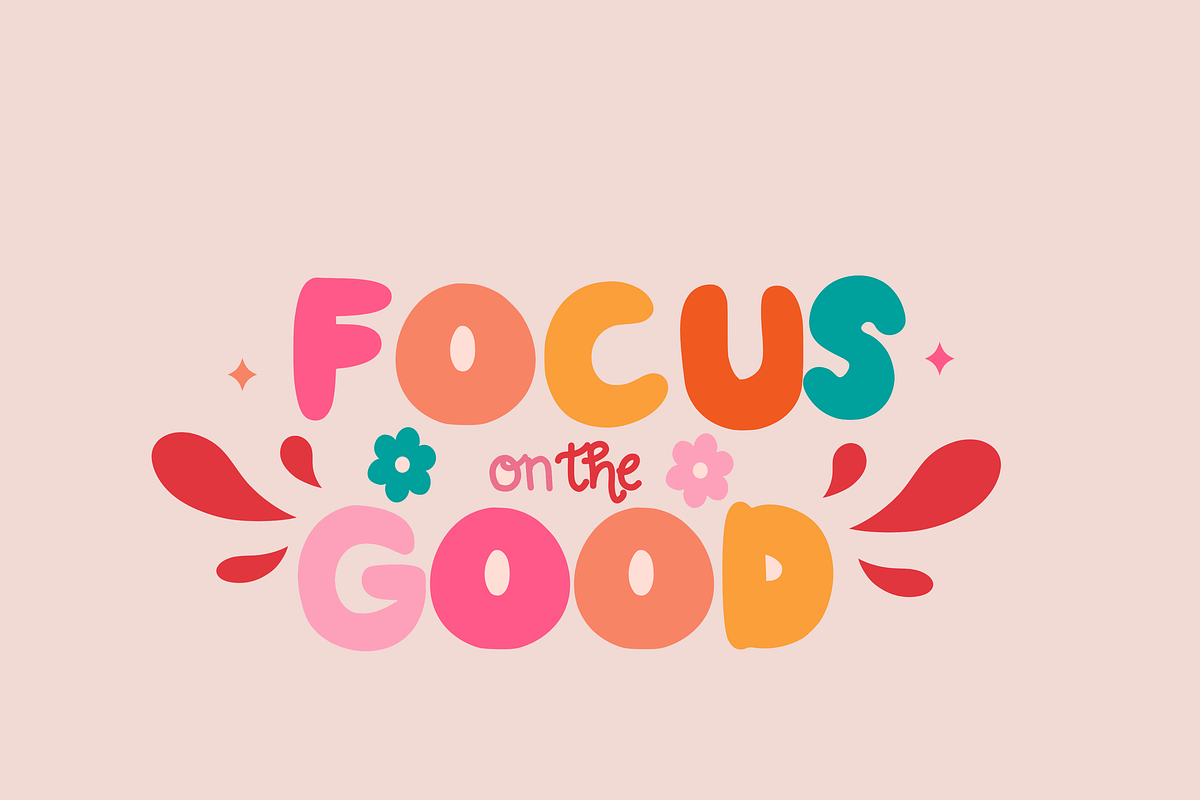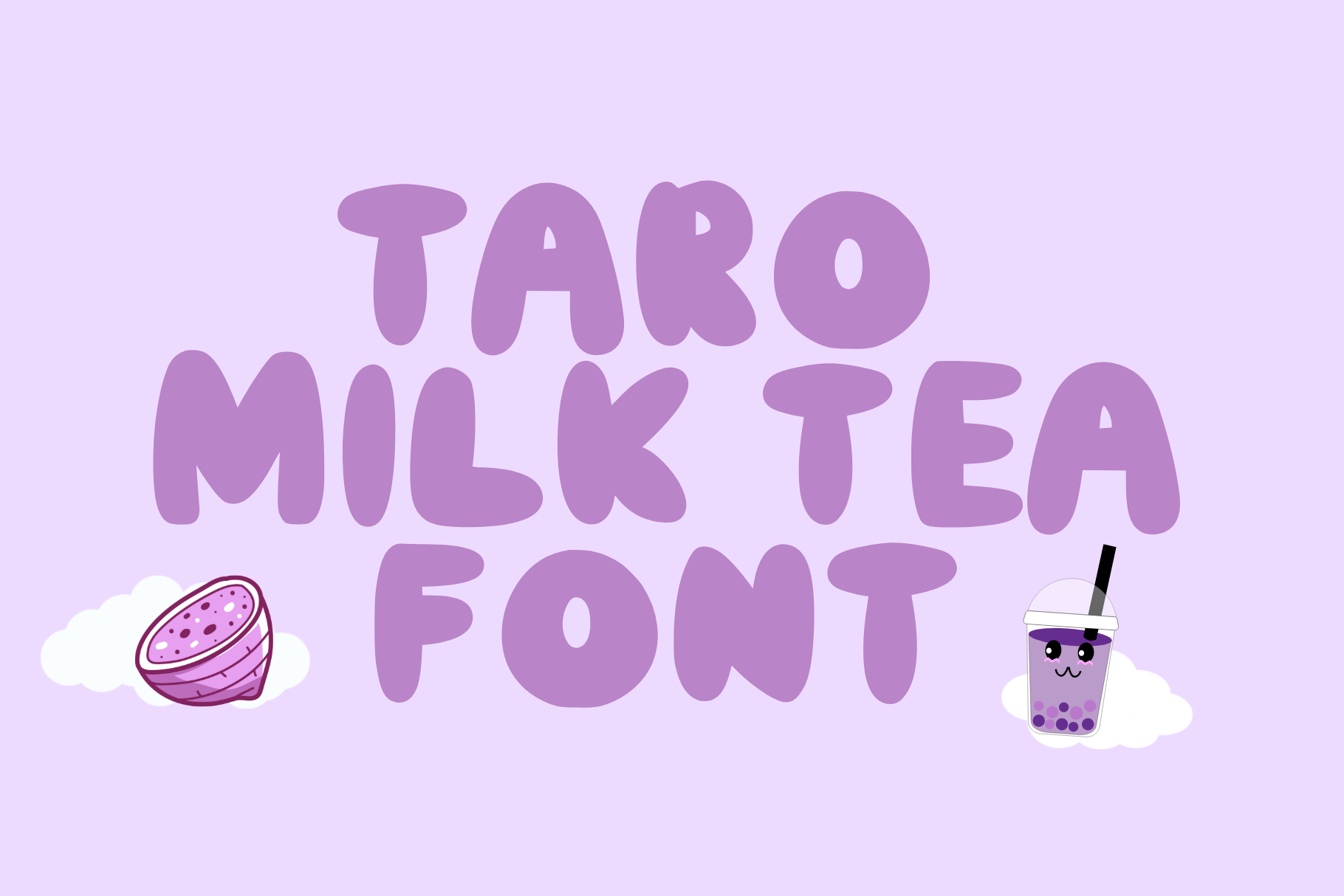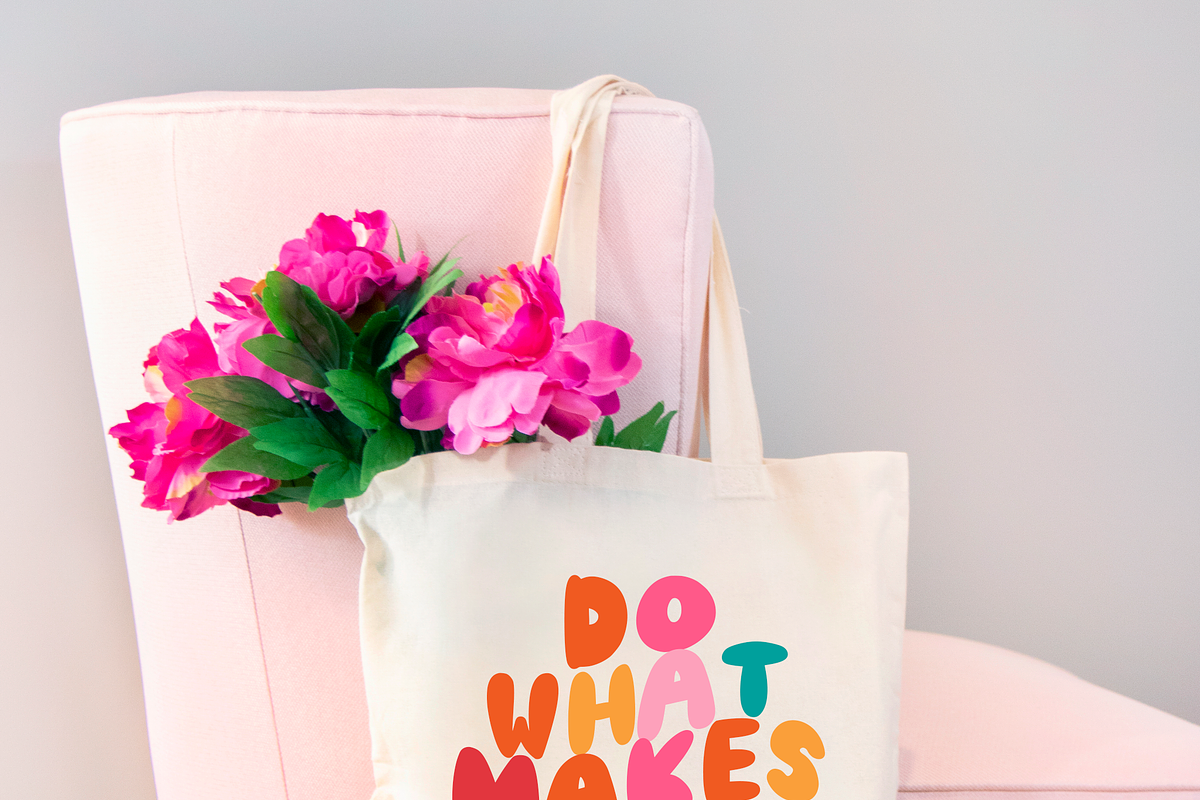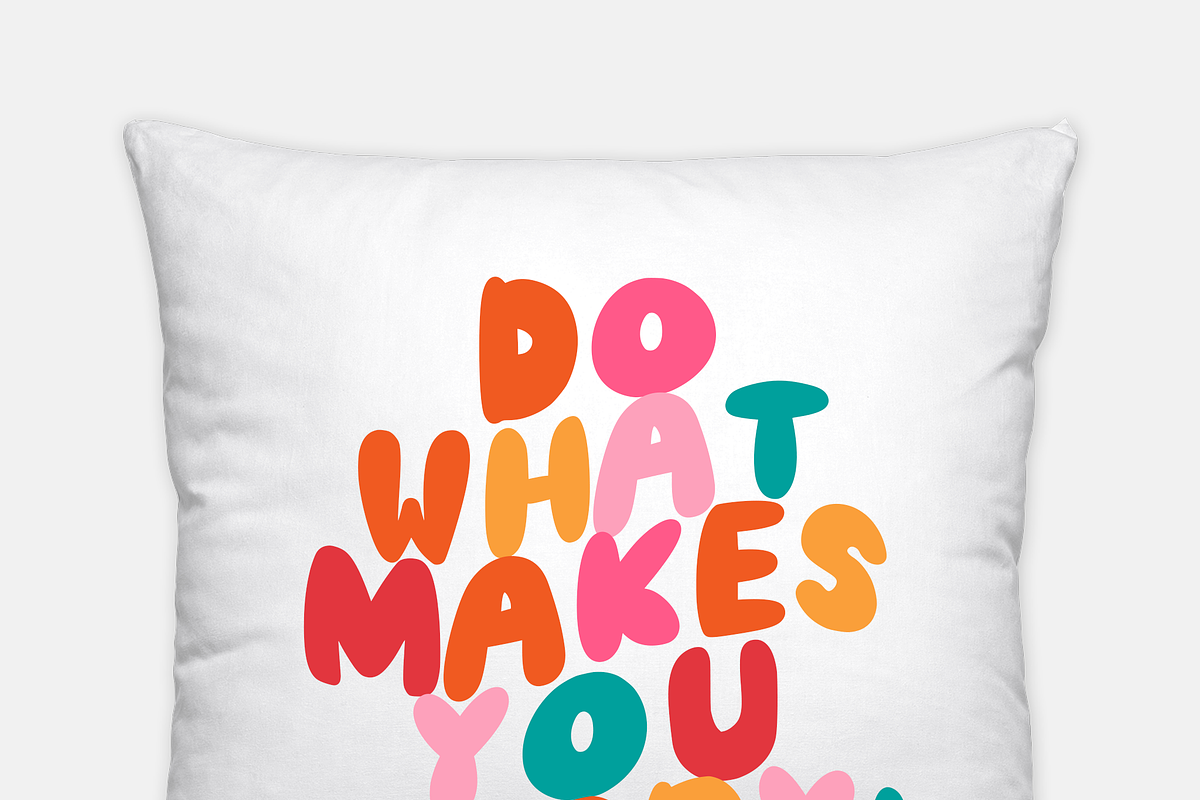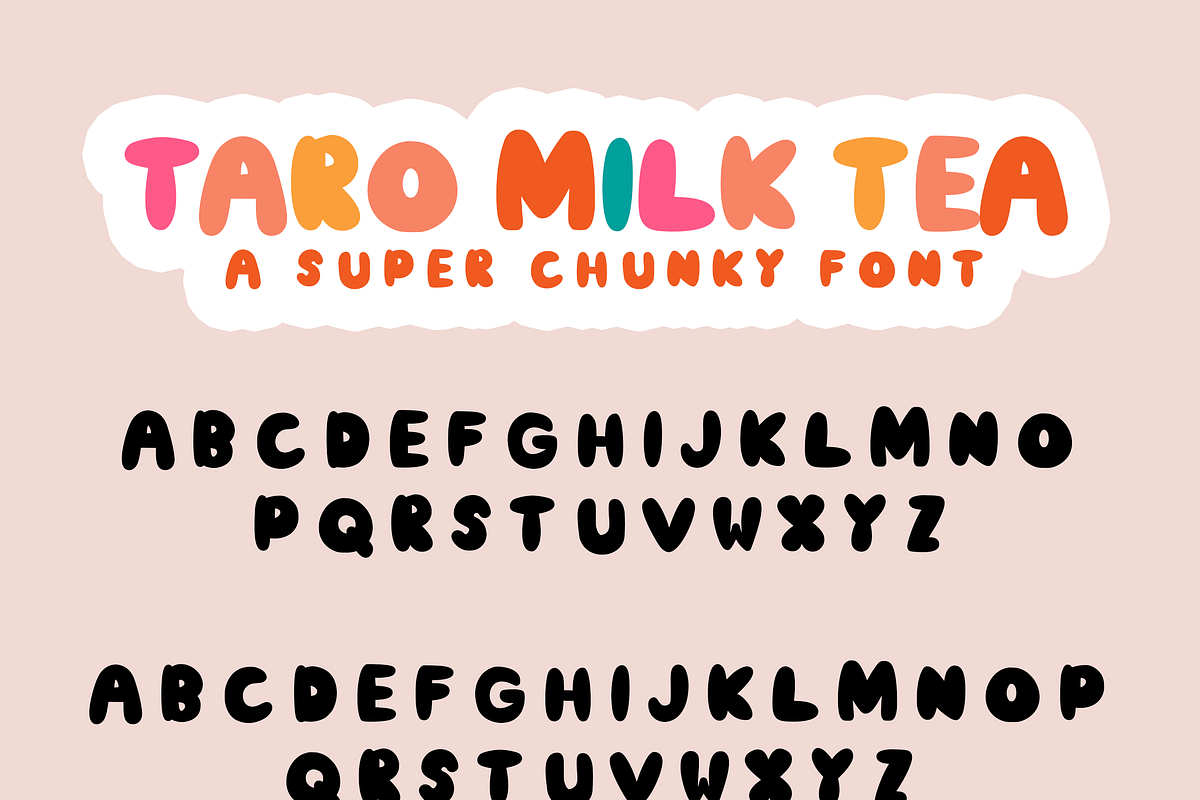
Taro Milk Tea Font
We introduce to you the "Taro Milk Tea" font! A super chunky handwritten font made just for you and all of your future fave products.
Perfect for one of a kind invitations, stickers, business cards, logos, blog headers, apparel design ..And so much more, the possibilities are endless!